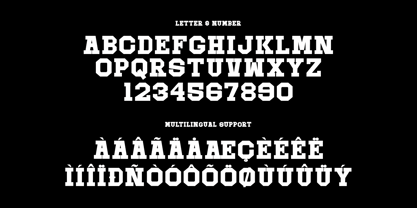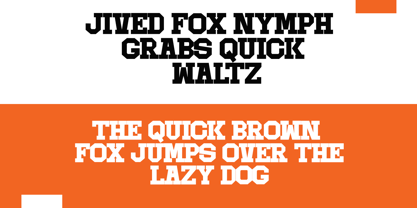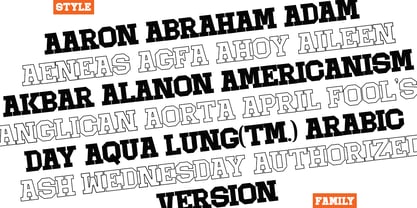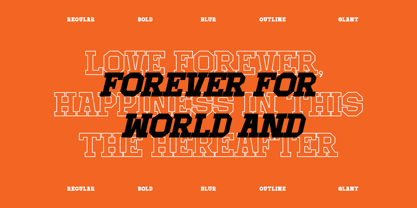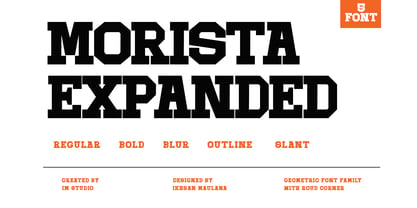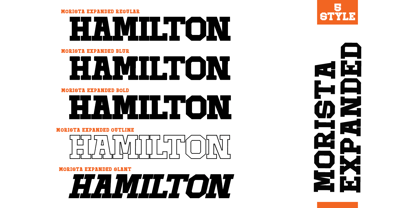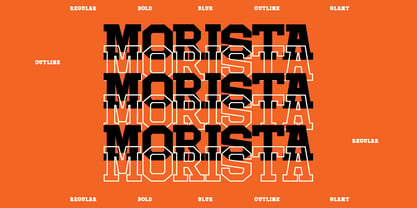
Morista Expanded
by IM Studio
The Morista Expanded Font Family was designed by Ikhsan Maulana and published by IM Studio. Morista Expanded contains 5 styles and family package options. More about this family
Morista Expanded Family | 5 Styles Morista Expanded Family is a bold and modern display typeface designed to make a strong visual impact. With its wide proportions and confident letterforms, it delivers a powerful presence that stands out in any layout — perfect for headlines, posters, branding, and web design. This versatile collection offers five distinct styles to match various design moods, from clean and solid to edgy and experimental. Font Styles Included: Morista Expanded Bold Morista Expanded Regular Morista Expanded Outline Morista Expanded Slant Morista Expanded Blur Bring bold character and modern energy to your next creative project with the Morista Expanded Family. For any requests or customizations, feel free to message me — I’d love to help!
Designers: Ikhsan Maulana
Current Foundry: IM Studio